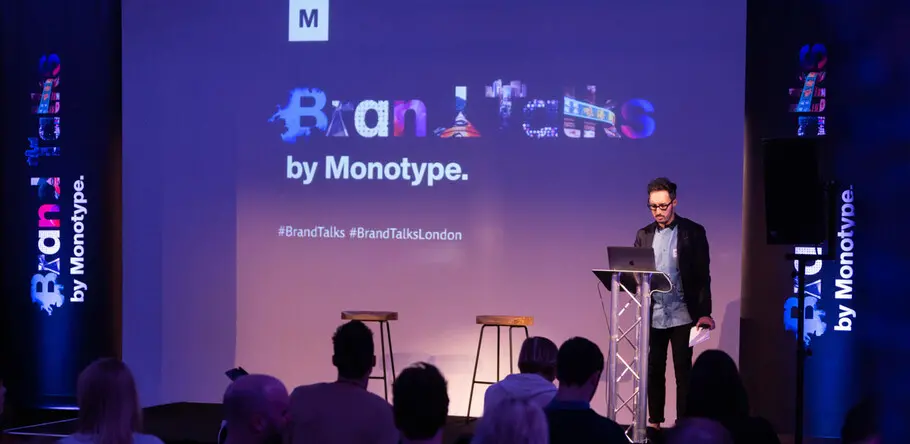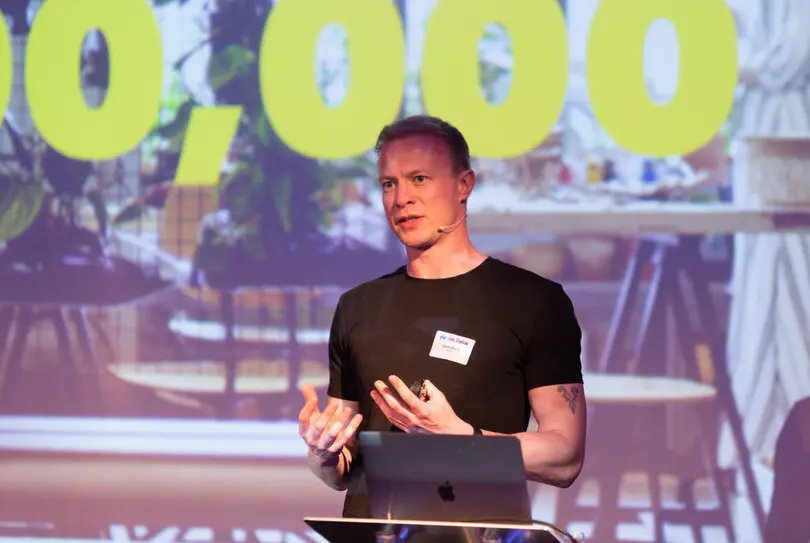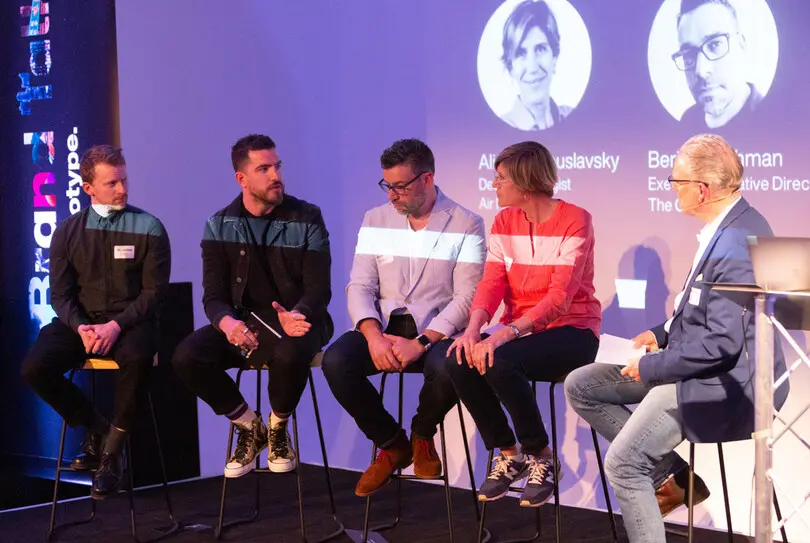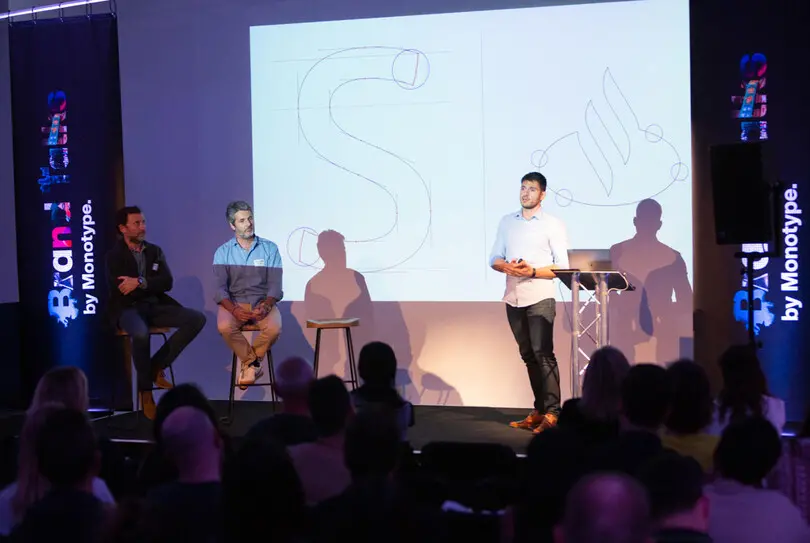
Brands built for the future: A recap of Brand Talks London 2019.
“ It’s no secret that today’s consumers are engaging with brands in more places than ever before. ”
“Some say that branding is not as important [today], but I’d argue it’s never been more important. It just needs to be applied in the right way.”
This quote came from Simon Gill, Chief Experience Officer at Isobar (part of Dentsu Aegis Network agency), and was one of the several key takeaways from last week’s Brand Talks London, an event hosted by Monotype. Held at Shoreditch Studios, in the heart of one of London’s most artistic neighborhoods, Brand Talks featured a full day of speakers from leading global brands and agencies who discussed the primary factors influencing brand identity in a modern world.
While several themes echoed throughout the panels and presentations, three that emerged as particularly notable were the need to:
• Maintain a consistent brand identity
• Communicate with customers in more authentic ways
• Develop a strategy to future-proof your brand
Maintain a consistent brand identity
It’s no secret that today’s consumers are engaging with brands in more places than ever before. With technologies like voice assistants, augmented reality, and the internet of things continuing to mature, brands will need to consider how to create experiences that can connect across an increasingly disparate buying journey.
Juan Erquicia, Group Brand Manager for Santander, spoke about the financial organization’s rebrand, designed to engage its global audience in more consistent ways. With roughly 144 million customers spread across the world and a myriad of different business units for both personal and commercial banking, it was important that Santander develop a brand identity that could be consistent everywhere but flexible for the needs of each individual market.
The brand worked with its agency, Interbrand, to undergo a comprehensive brand reform. Interbrand’s Executive Creative Director, Borja Borrero, and Senior Designer Lucas Machado shared the full scope of development that went into producing a truly consistent brand for its client. The process included balancing the color pattern; updating the famous “flame” logo for digital environments; and developing iconography and imagery that was consistent but featured people with varying skin tones and looks, either thinking or on the move to align with the brand’s vision of helping people achieve their dreams. Santander also worked with Monotype to develop a new custom logotype, moving from a serif to a sans serif.
After all of that, Santander realized there was one missing component, and worked with Monotype to develop a brand font as well: “Santander headline, Santander text,” empowering even greater consistency for its new brand identity. Check out the below video to learn more about the brand’s new typeface.
In another session, Lin Chiang-Hui, Staff Creative Designer, Corporate Branding and Tan Peiling, Senior Creative Designer, Corporate Branding at Alibaba Group spoke about how consistency in branding led to the development of Alibaba’s new corporate typeface, Alibaba Sans. The company developed the typeface alongside Monotype and offered it free of charge to the many independent vendors that use its platform.
“We want a typeface that doesn’t just speak to our consumers, but also our internal employees,” Chiang-Hui noted during the presentation. “We gave our teams hundreds of keywords and asked them to pick out 10 that resonated with Alibaba’s identity.” Some of the words that stood out for employees were “dynamic,” “dependable,” “youthful,” “passionate,” and “strength,” and the team used these keywords to govern their new identity.
For Alibaba, consistency in language was of particular importance as the company continues to expand its footprint globally. Latin and Mandarin characters had to appear as a family, and Alibaba Sans was designed to cover 172 distinct languages. To learn more about Alibaba’s new typeface, check out our case study.
Communicate with customers in more authentic ways
Today’s consumers want to buy from brands they trust and that align with their values. In a session led by Jason Black, Web Communications Manager, UK & Ireland at IKEA and Ali Peacock, Growth Executive at Olapic by Monotype, the pair explored the need for a new kind of visual imagery to more honestly communicate with audience segments.
“In terms of authenticity and market relevance, we find that user-generated content plays a big role,” Black told attendees. IKEA, he said, has produced more than 400,000 content assets using an in-house agency, so the team is not short on content. But working with Olapic to deploy a UGC strategy allows the company to add unique value in its messaging and show a more accurate representation of its customers lifestyles.
As Black noted, the IKEA buying journey includes exploring, filtering, and eventually buying. “UGC helps us fulfill the need for the consumer at each stage,” he said.
Of course, for a brand to be successful in the future, it needs to build strong relationships with its audience, now. According to Hind, “better imagery unequivocally increases engagement and empathy.